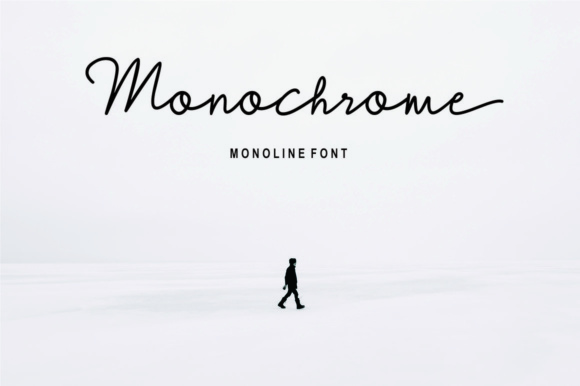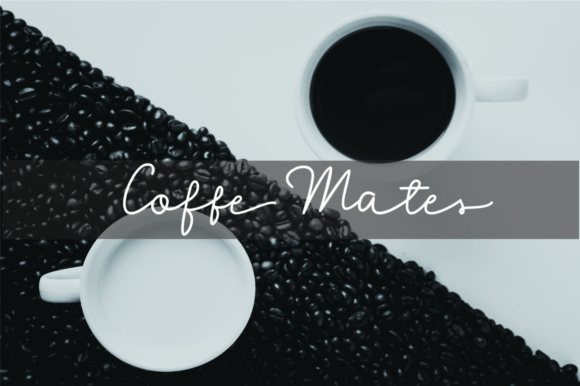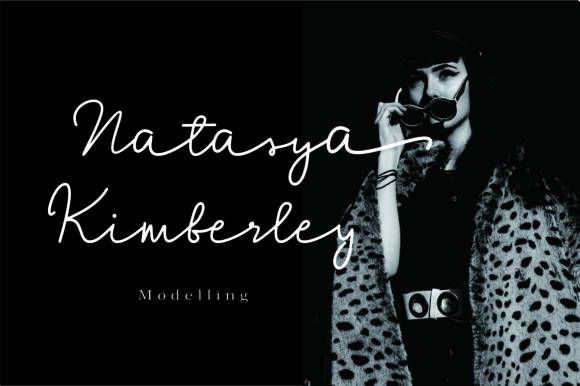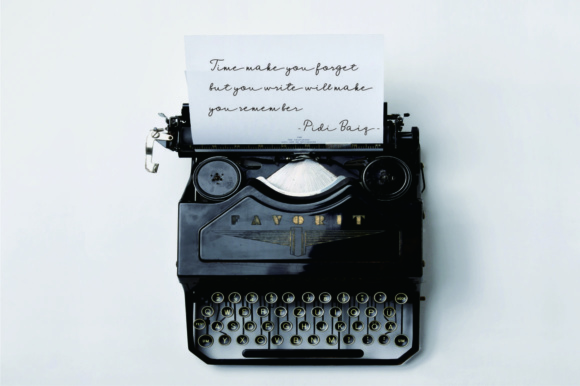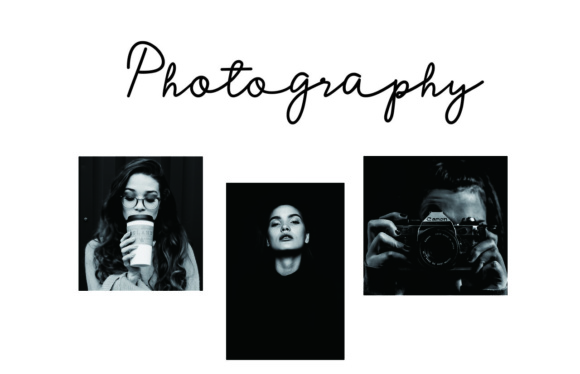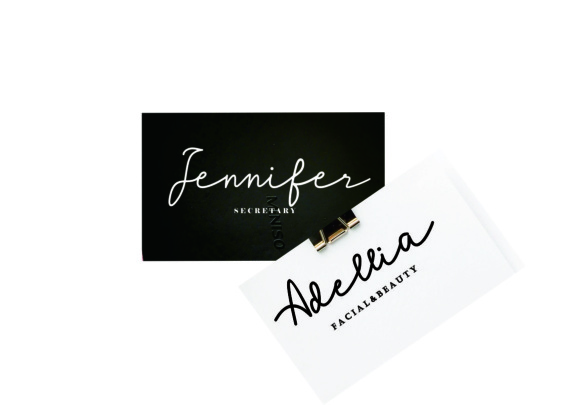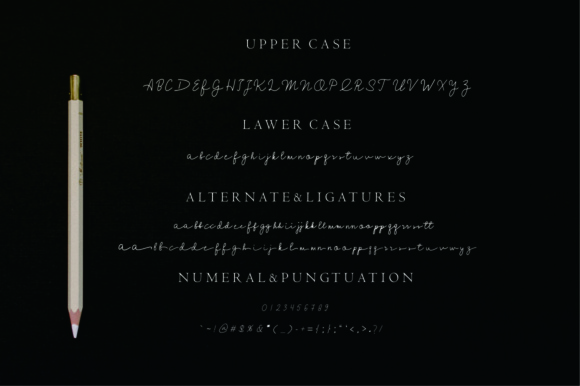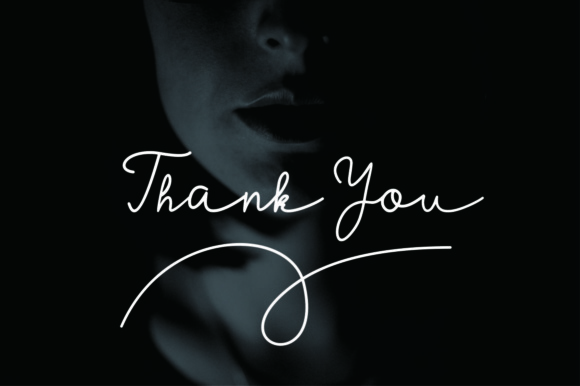
Monochrome Font
About Monochrome Font
The Monochrome is a modern monoline font. It contains beautiful letters with swashes which will give your design a feminine, handwritten look.